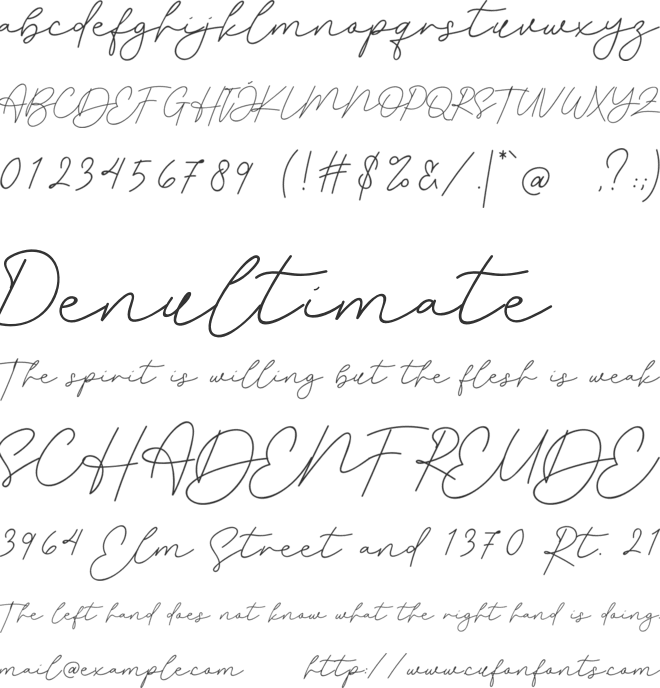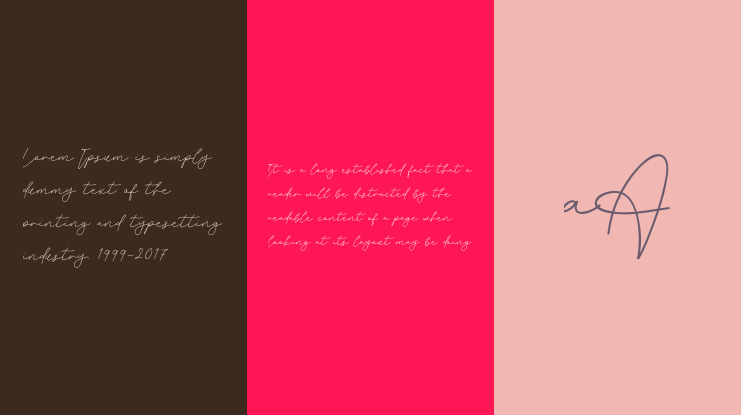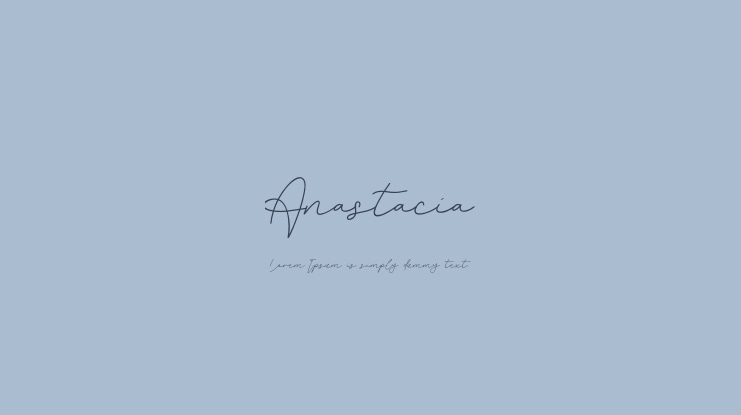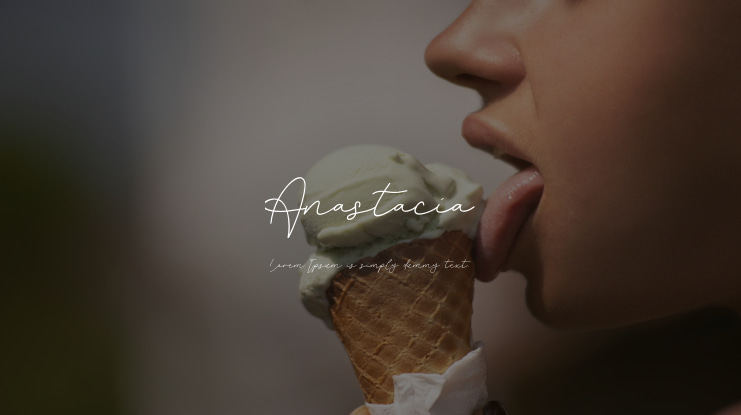
Anastacia Font
Anastacia is an exquisite handwritten font, masterfully designed to become a true favorite. It maintains its classy calligraphic influences while feeling contemporary and fresh.